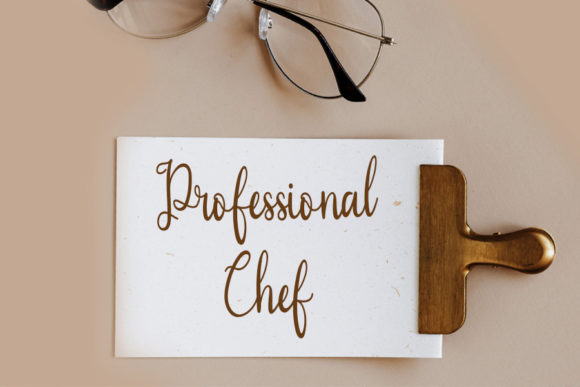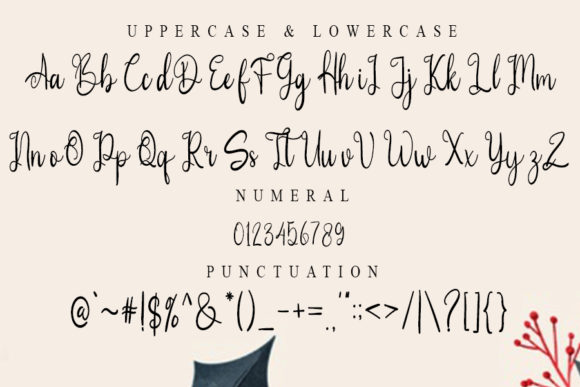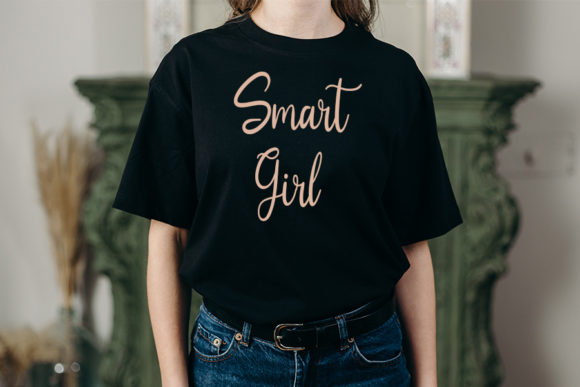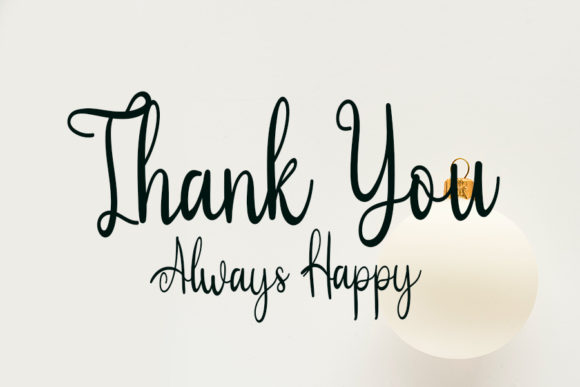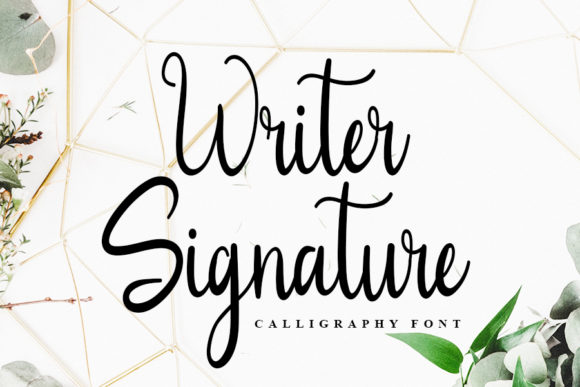
About Writer Signature Font
Writer Signature is a cursive and joyful script font with stunning calligraphy style and flowing lines . It looks beautiful on a variety of designs requiring a personalized style, such as wedding invitations, thank you cards, weddings, greeting cards, logos and so on.